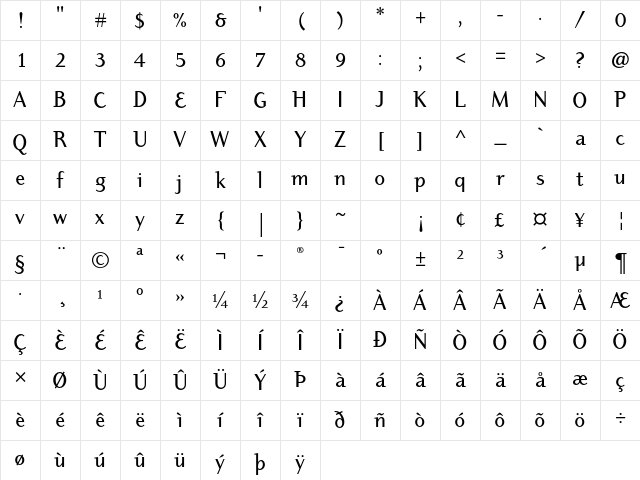
Dyadis ITC Std Medium
Designer: Yvonne Diedrich
Complete Dyadis ITC Std Medium glyph index. Displaying only characters natively supported by Dyadis ITC Std Medium font.
Design Context for Dyadis ITC Std
Dyadis ITC Std is a composed and adaptable typeface that performs quietly and consistently across a wide range of design contexts.